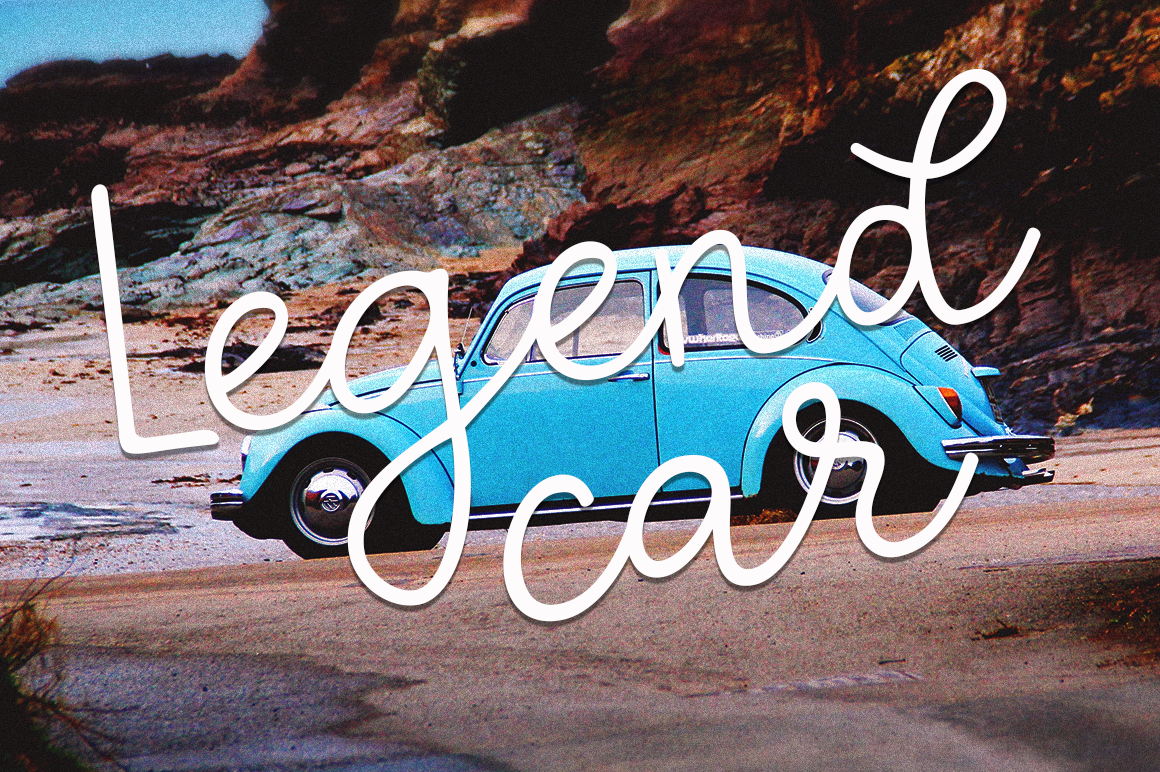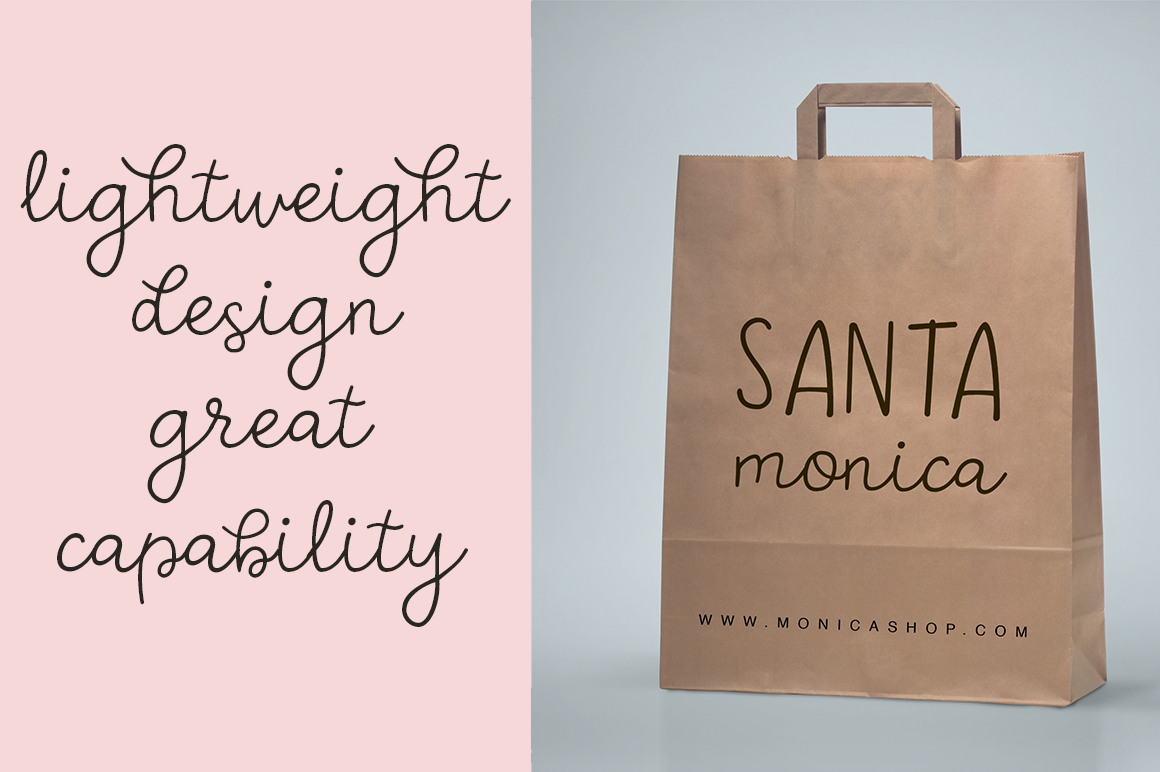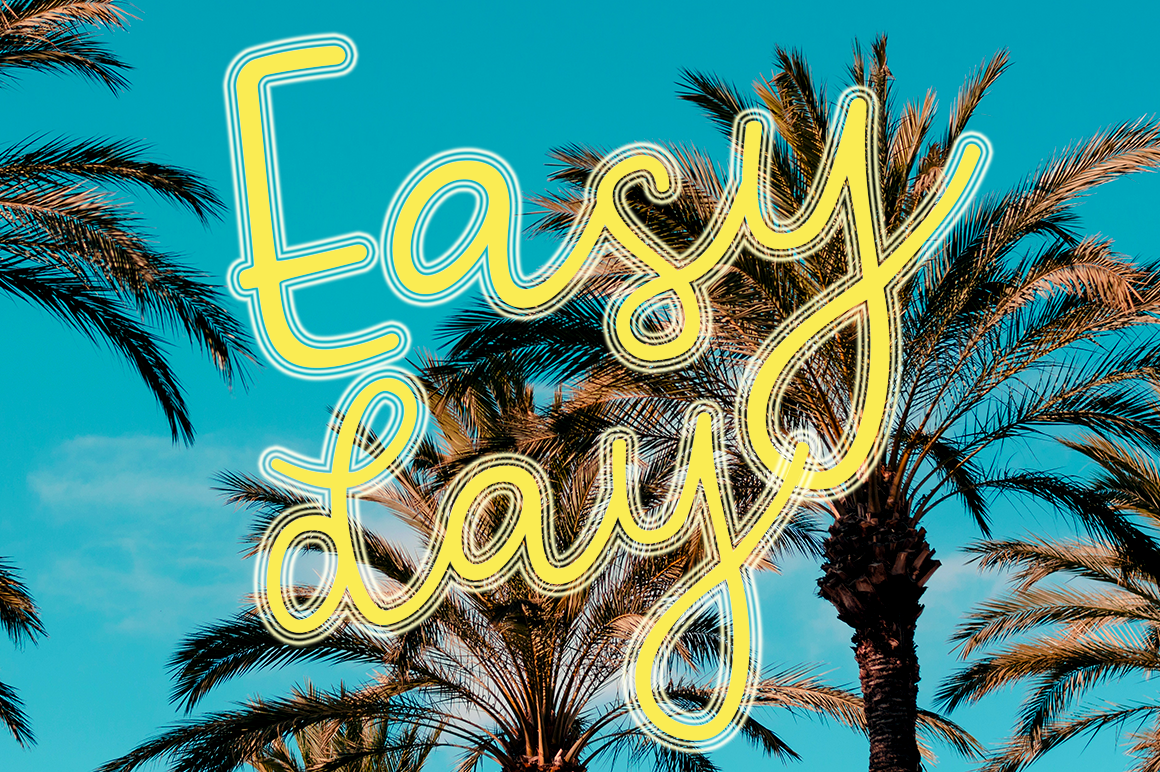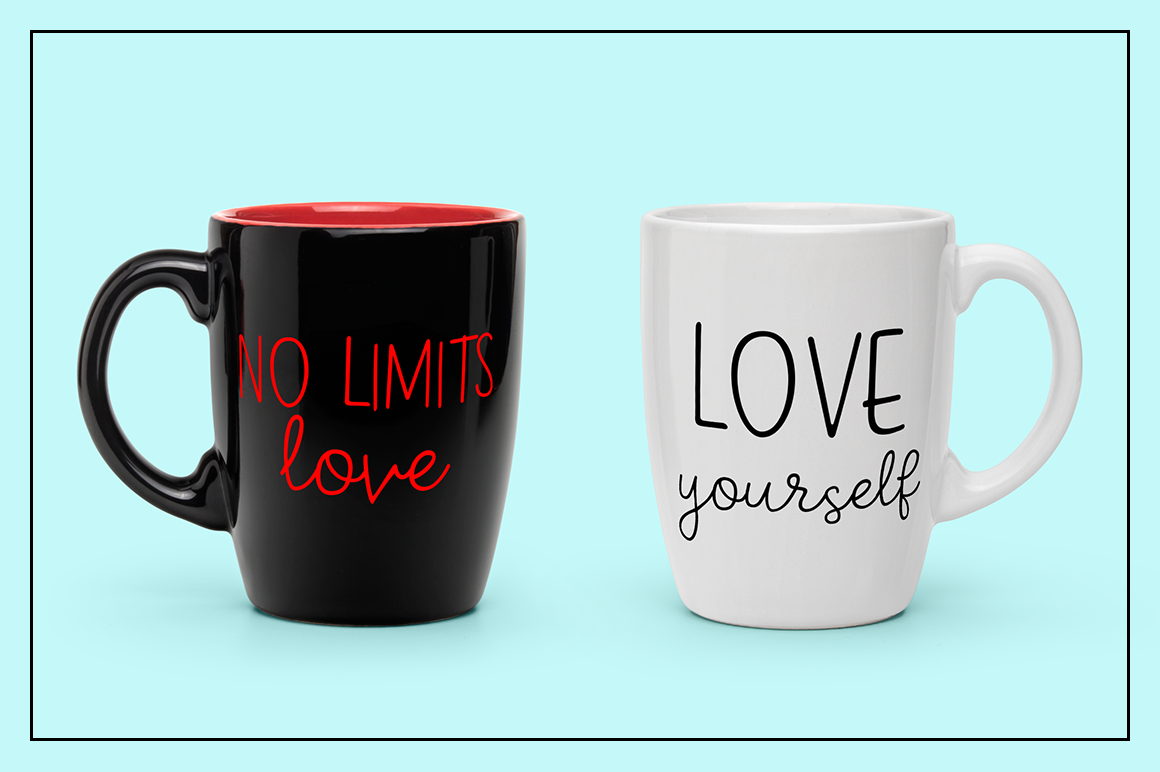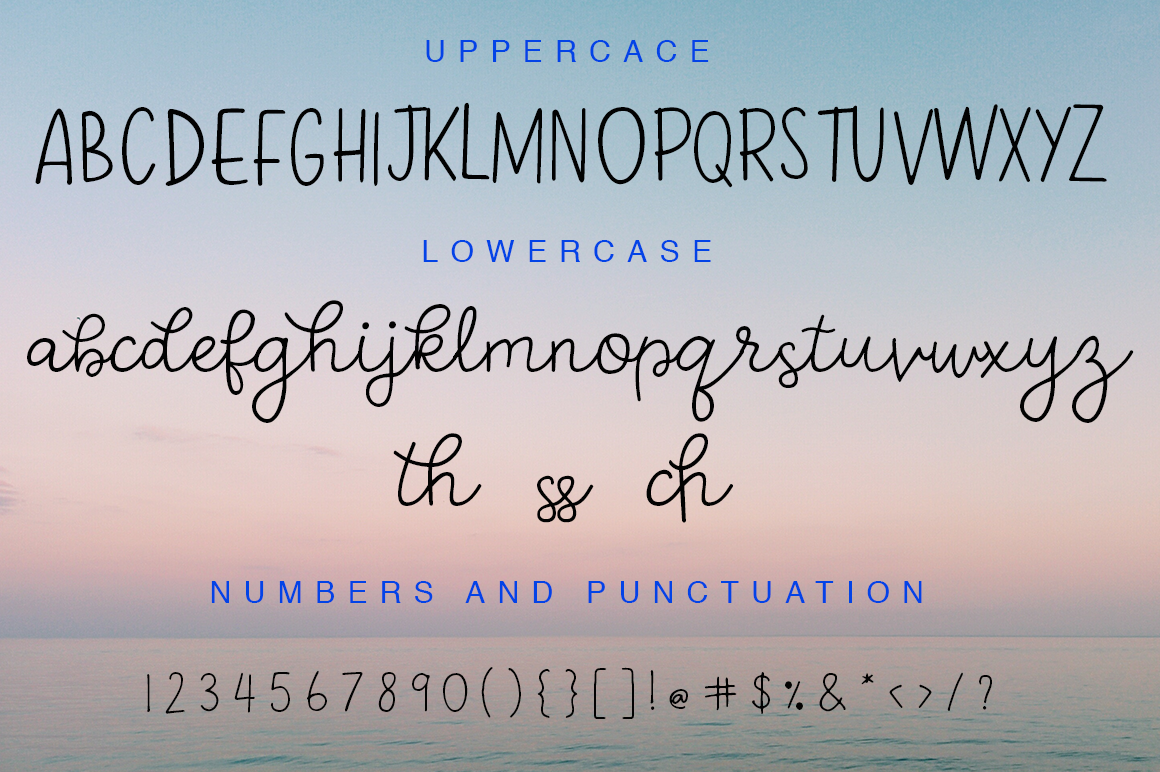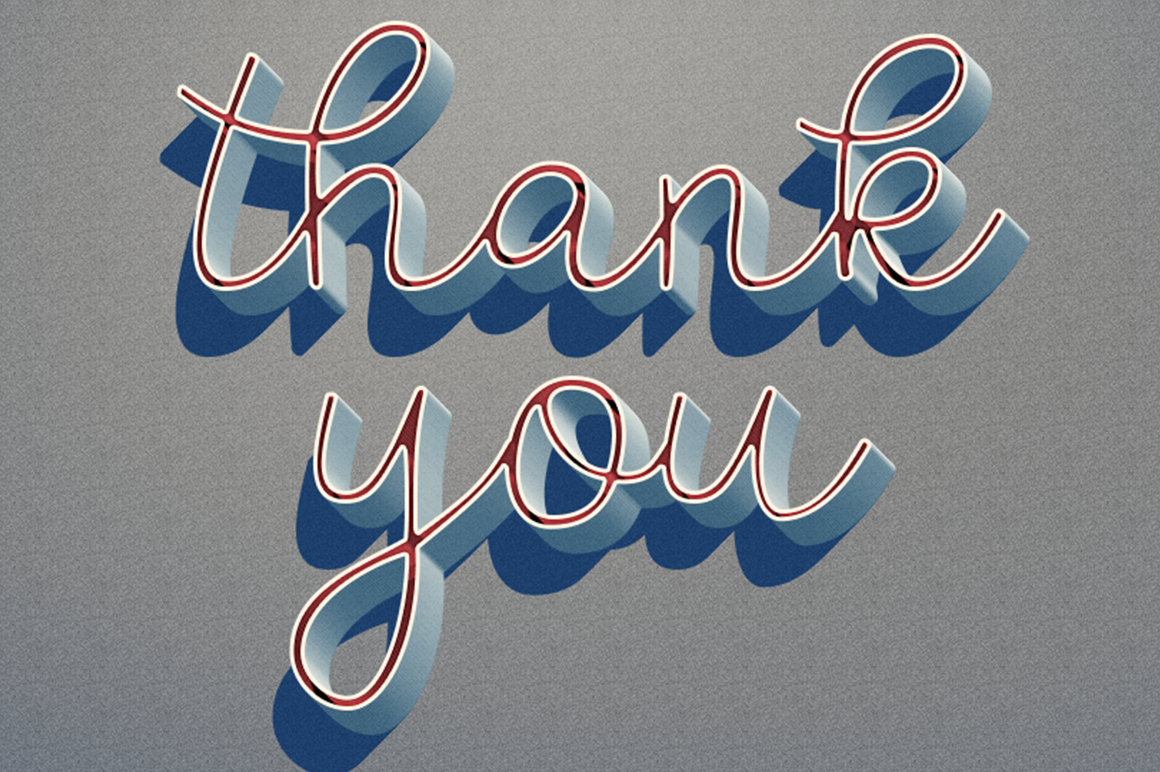
Andrea Font
About Andrea Font
Andrea is a elegant monoline handwritten script font.
It’s ideal for branding adding a personal decorative touch to your projects. It works well for wedding invites, blog headlines and other personal design, but can also be used to create corporate designs.